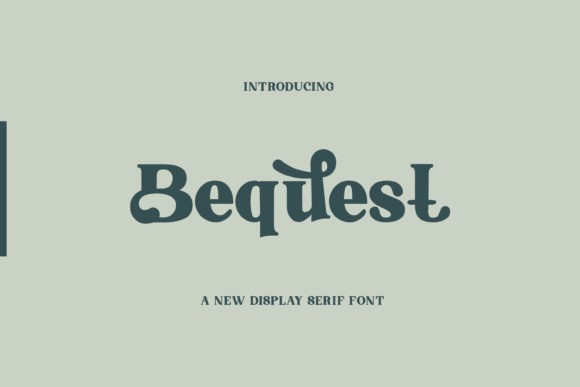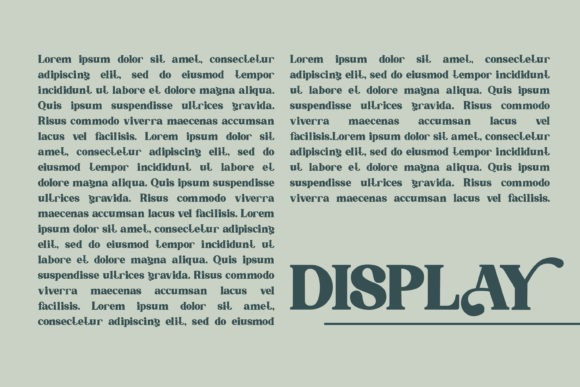
Bequest Font
Bequest is a thick lettered and trendy serif font. This font is PUA encoded which means you can access all of the glyphs and swashes with ease! Fall in love with its incredibly versatile style and use it to create spectacular designs!